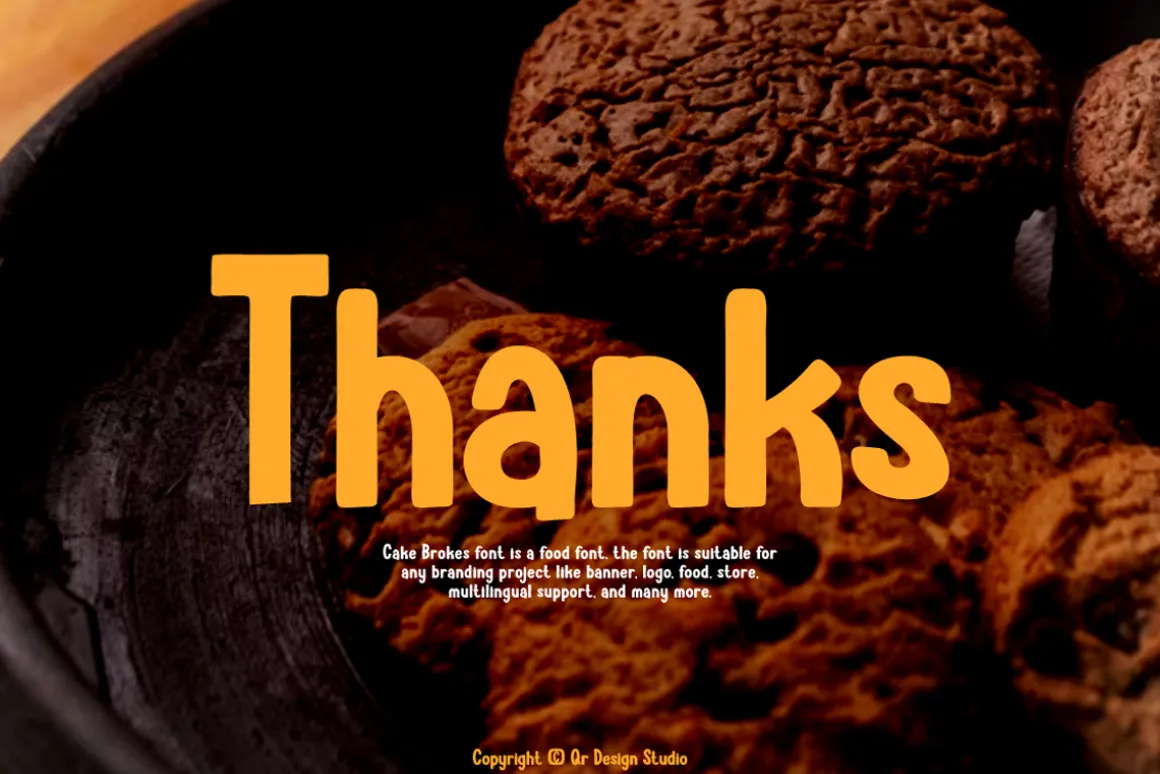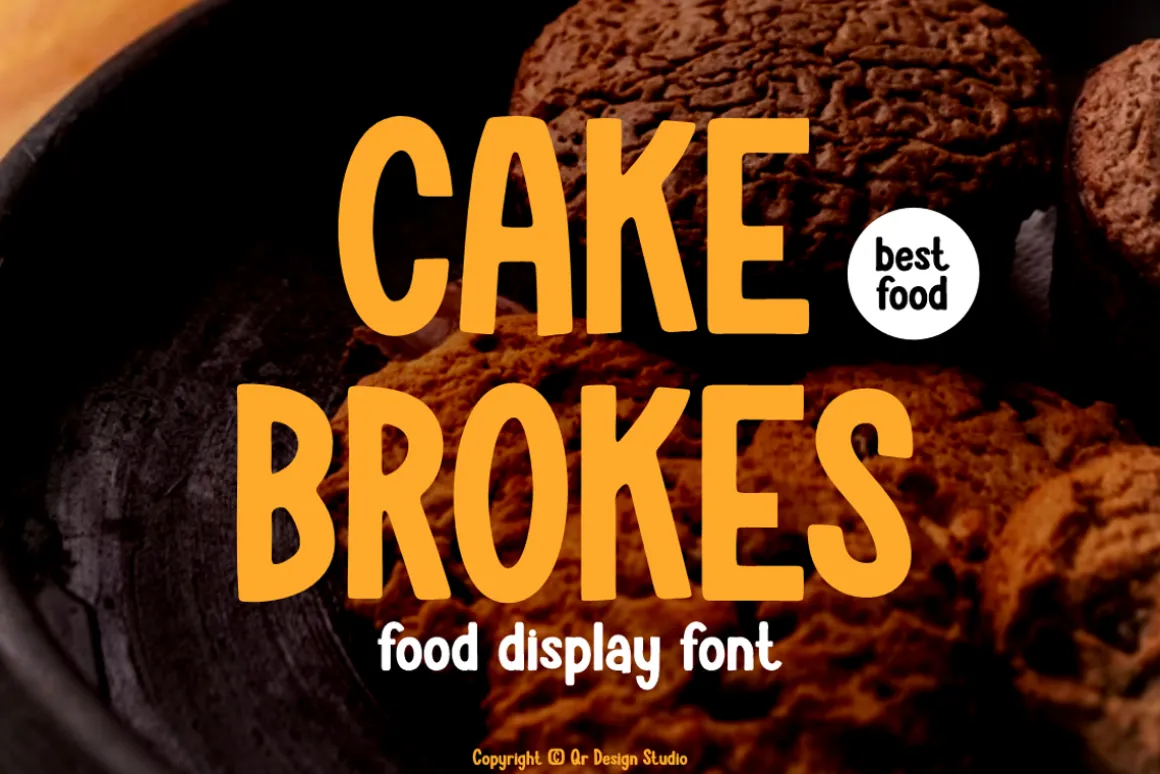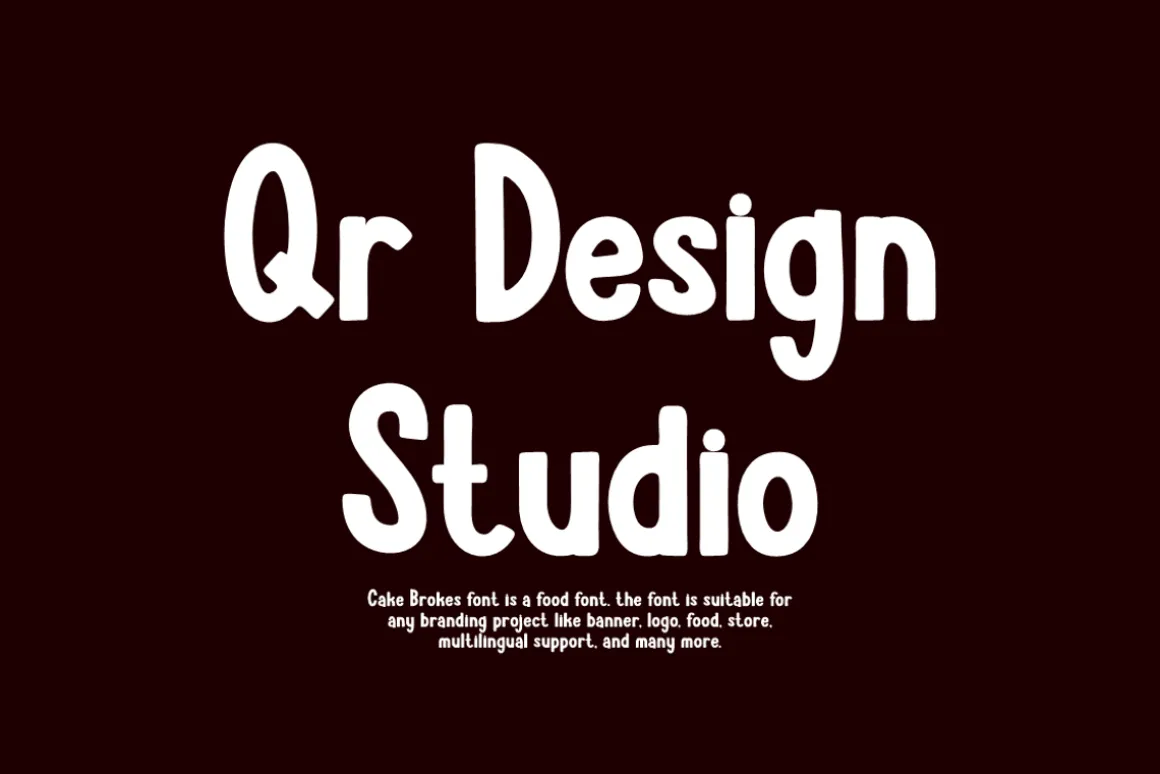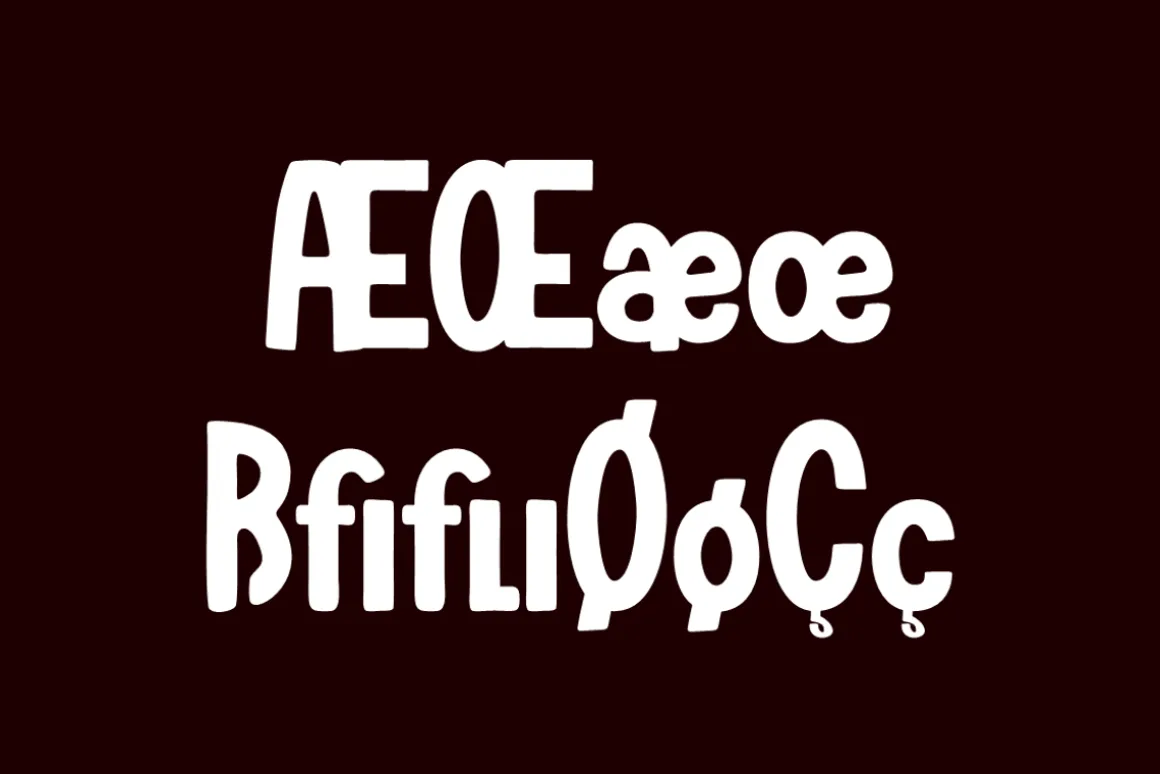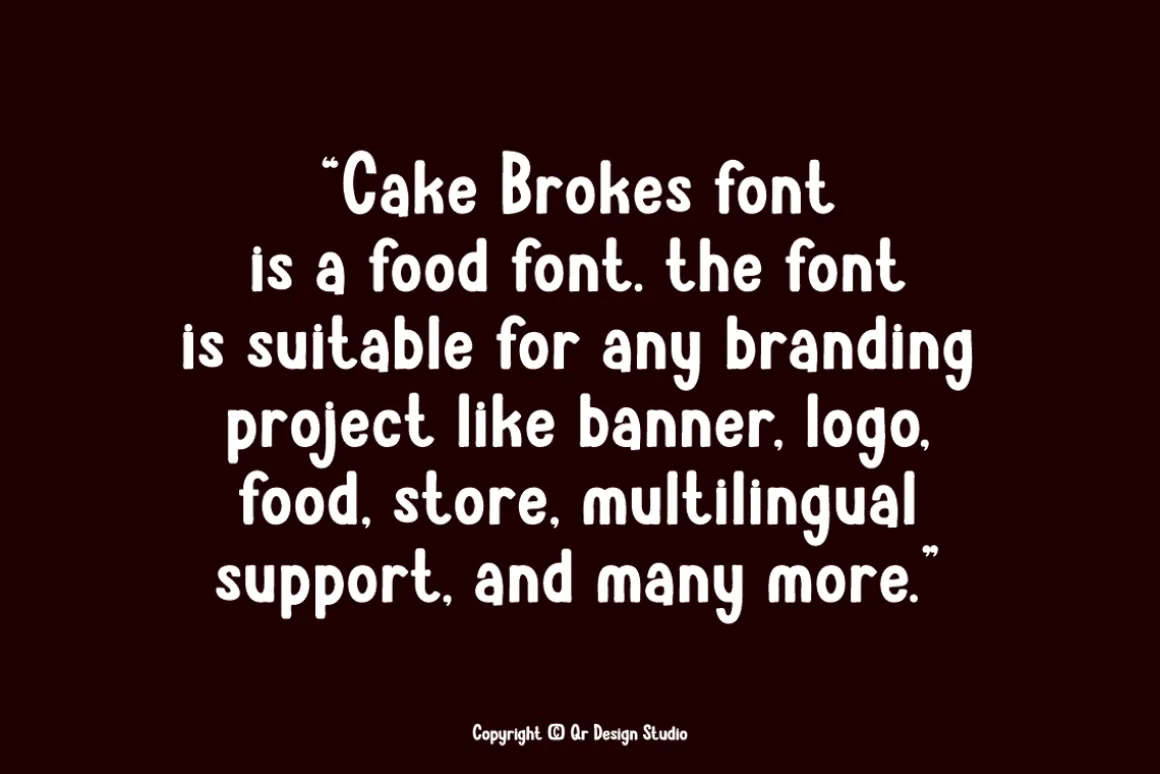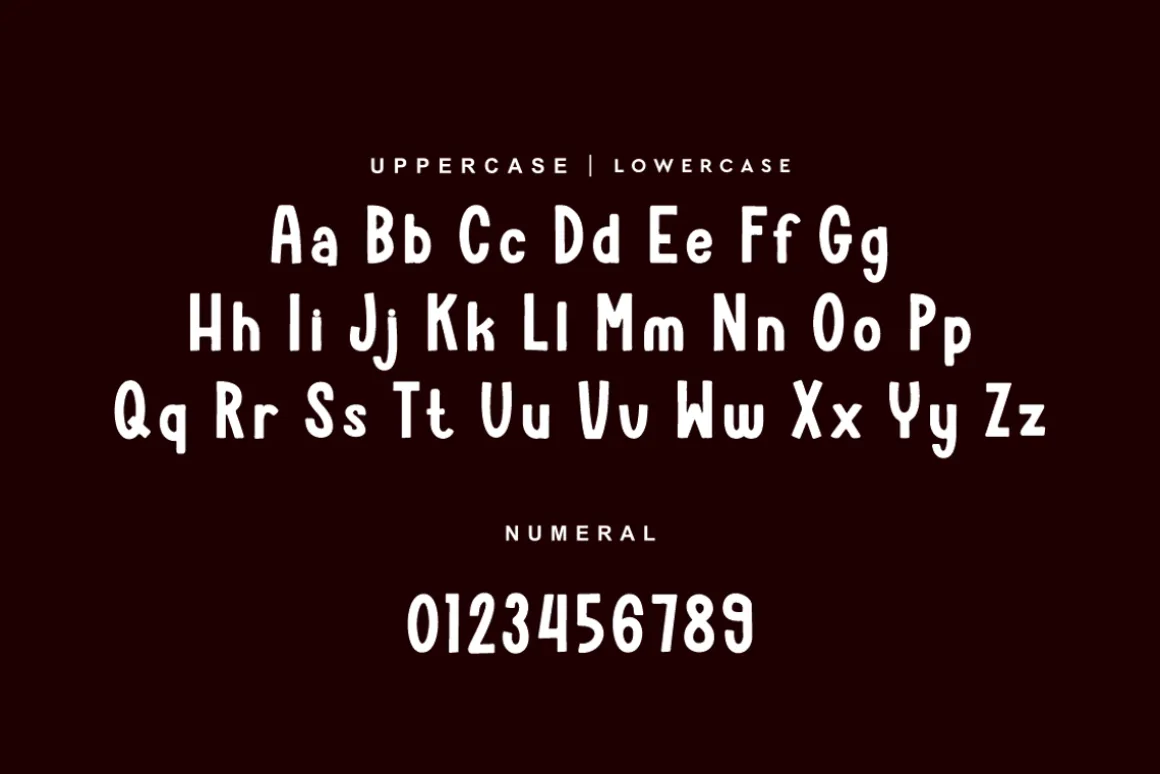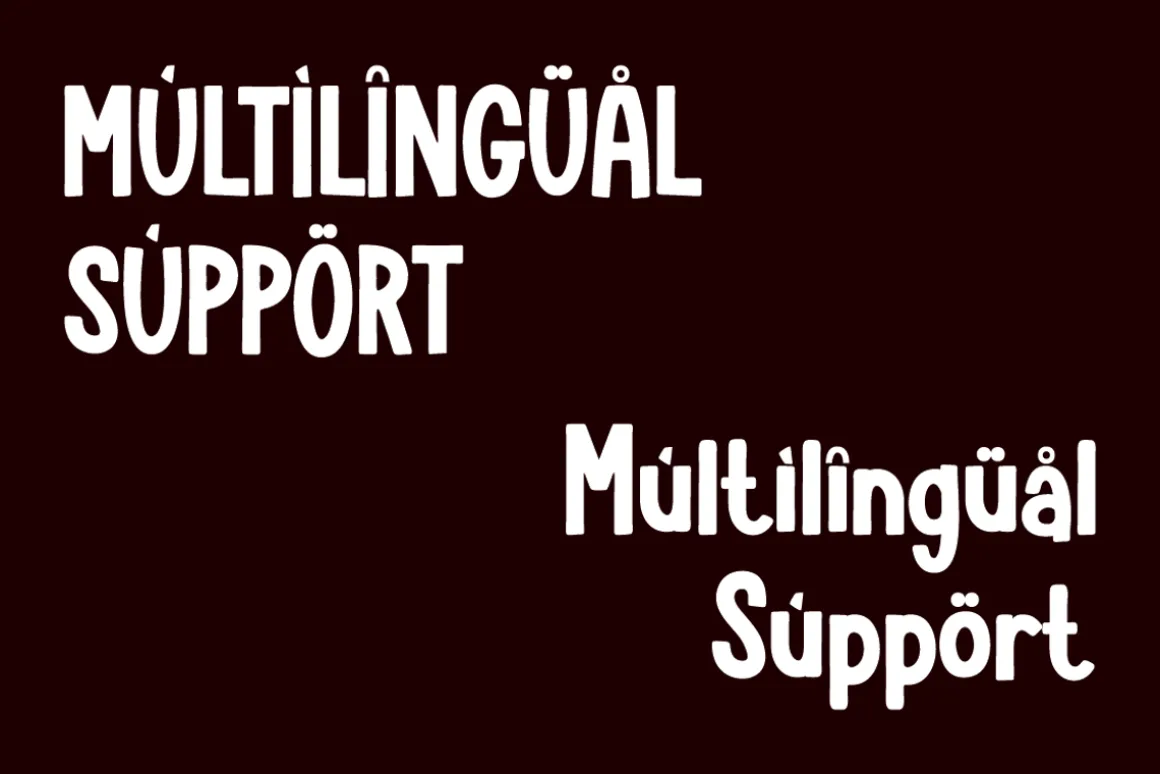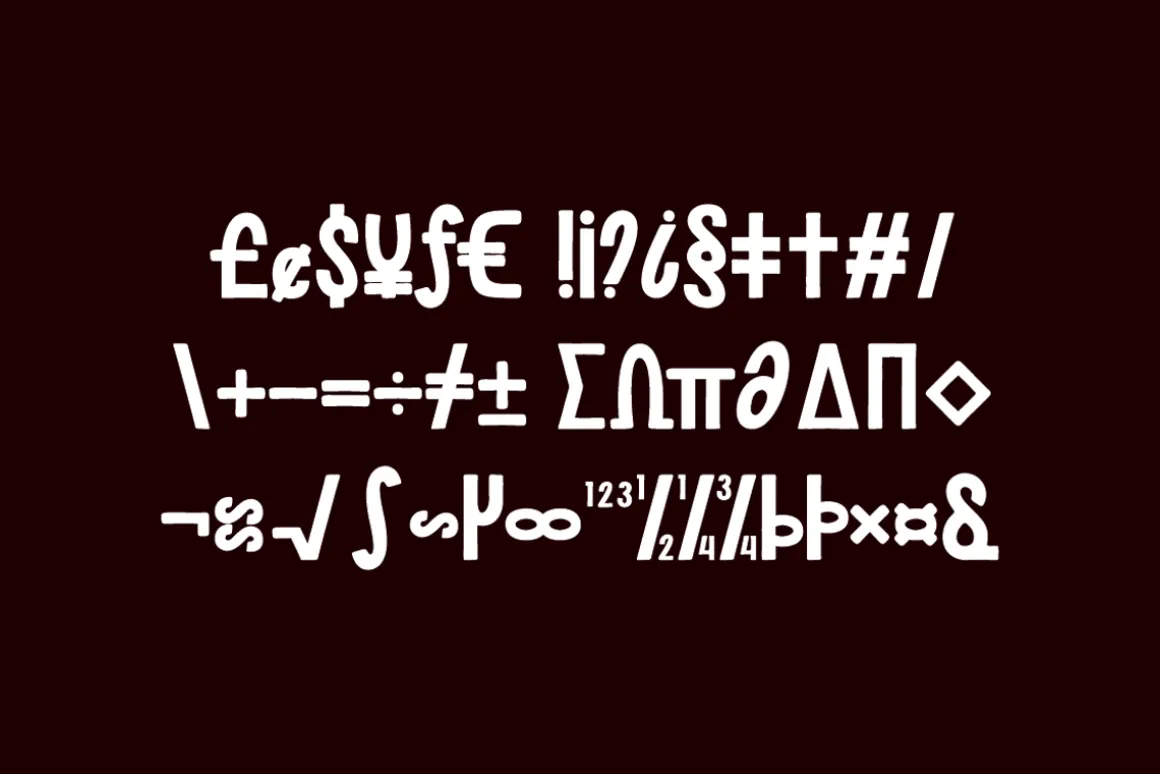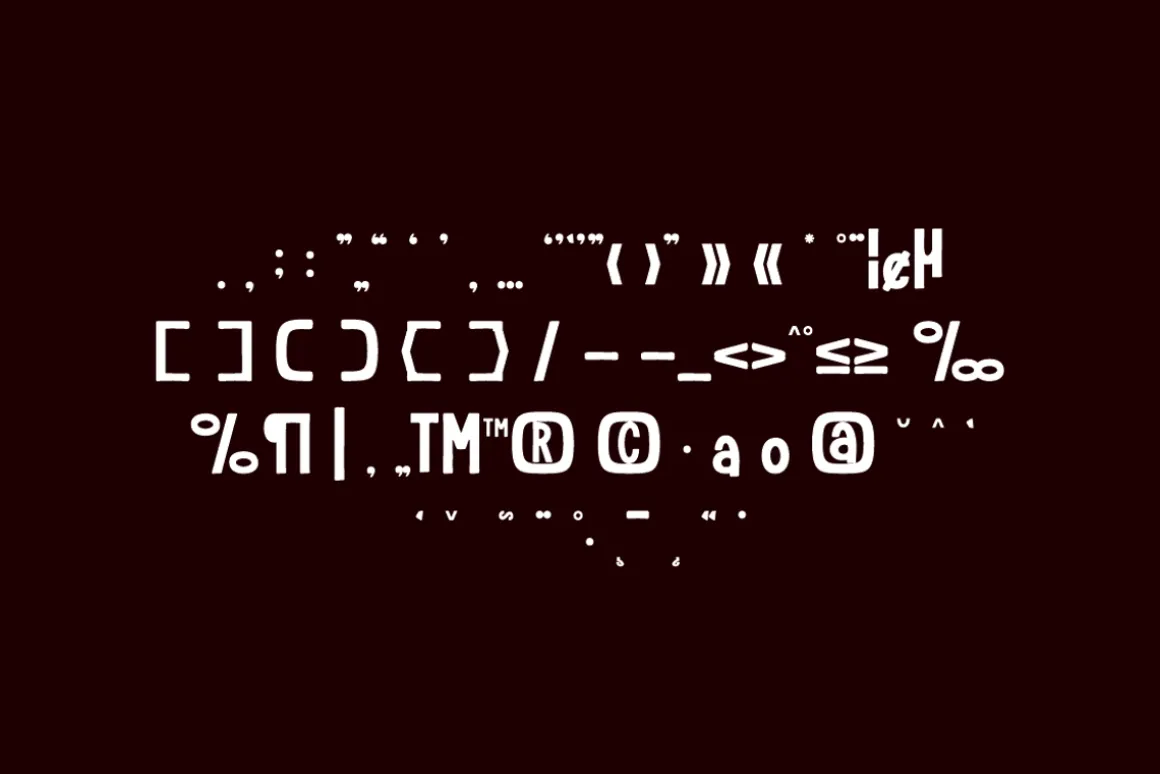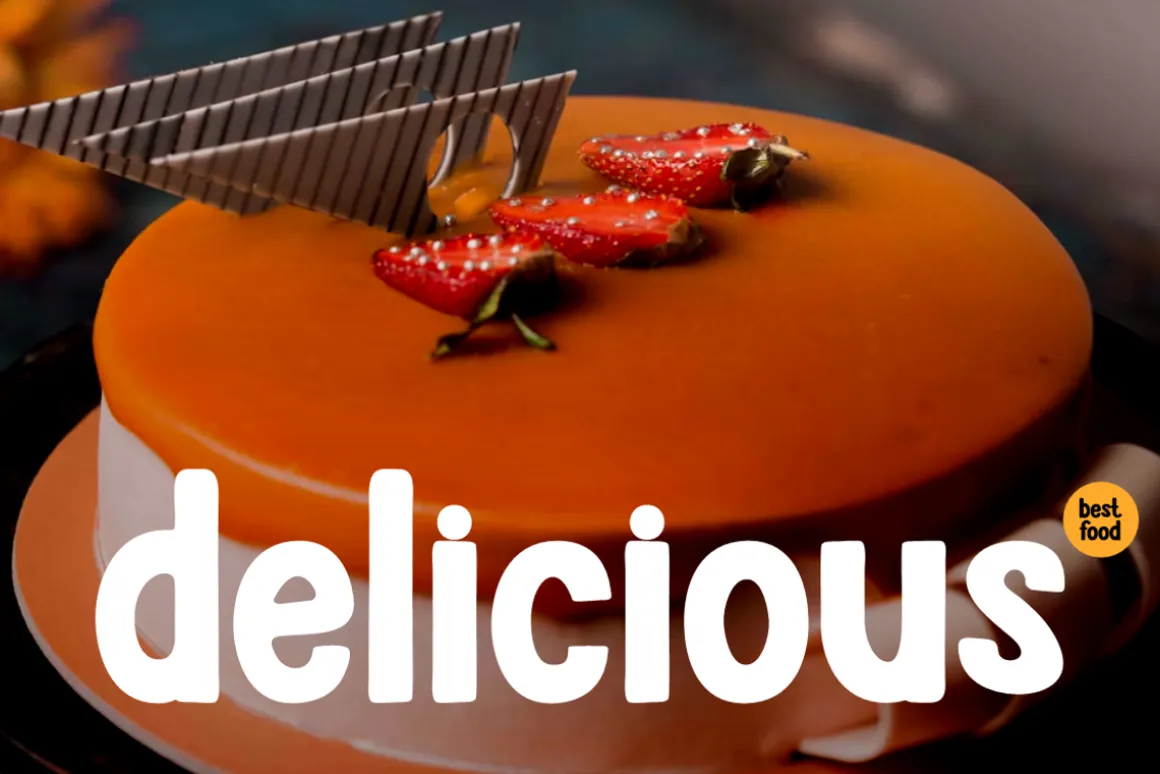
Cake Brokes Font is a best and authentic display font.The font is suitable for any branding project like poster, logo, food, and many more.Outstanding in a wide range of contexts.